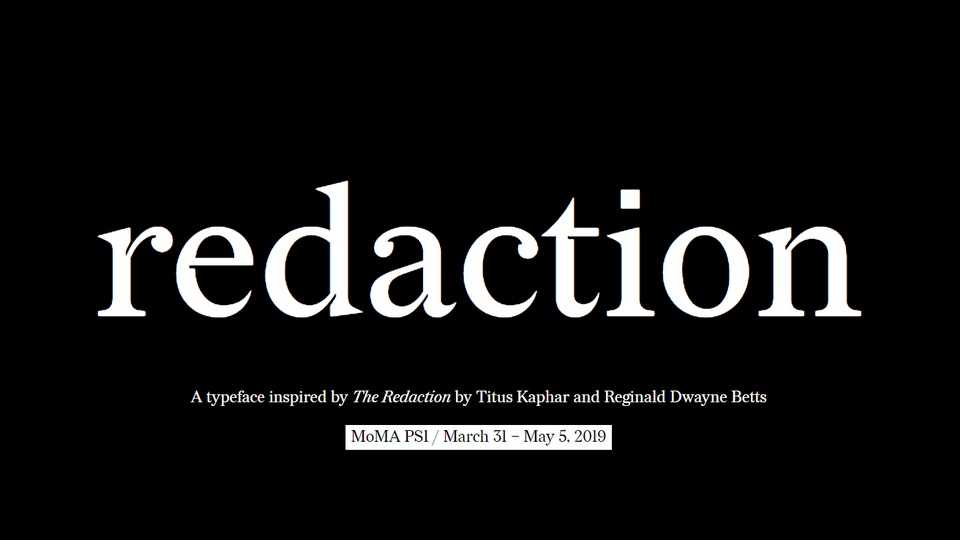
Download Redaction typeface, a font family of 21 fonts that featuring multiplicity of typographic, legal, and human histories. Redaction was commissioned by Titus Kaphar and Reginald Dwayne Betts’ The Redaction exhibition at MoMA PS1.